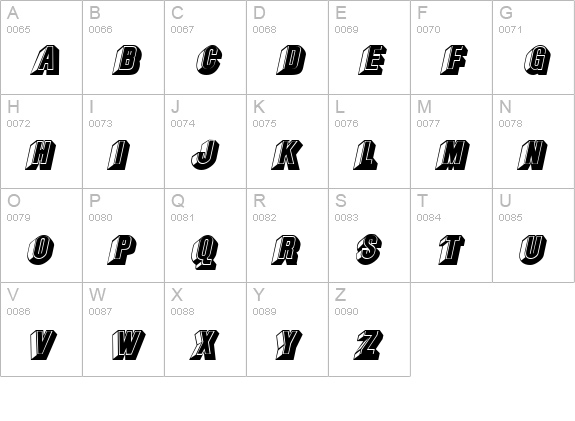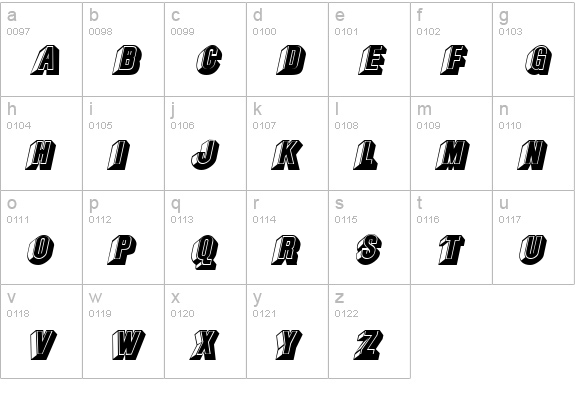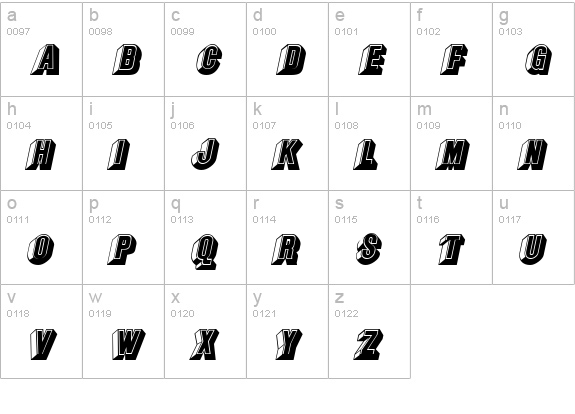
Chocolate Italic Font Details
Chocolate Italic is a distinctive, italic variant in the Chocolate typeface family \xE2\x80\x94 well suited to design and typography projects.
Introducing Chocolate Italic font - a delectably elegant typeface that adds a touch of sophistication to any design project. With its smooth curves and stylish flair, Chocolate Italic exudes a sense of luxury and class. The slanted italic style adds a dynamic and modern twist to traditional typography, making it perfect for a wide range of applications. And the best part? Chocolate Italic font is completely free to download at FontsMarket.com! Whether you're working on a branding project, creating invitations, or designing a website, this font is sure to make a lasting impression. Embrace the richness and indulgence of Chocolate Italic font in your next design endeavor and elevate your creations to a whole new level of elegance.